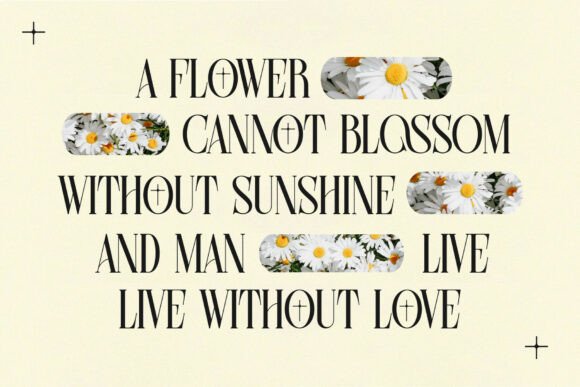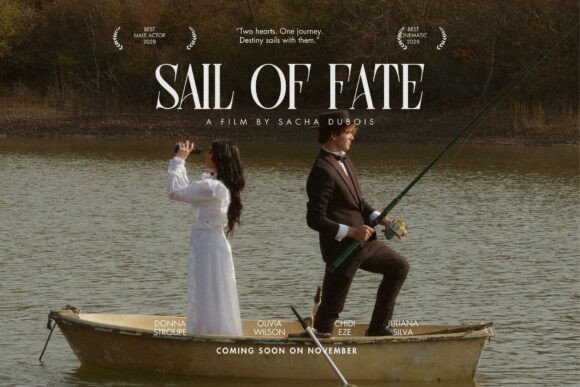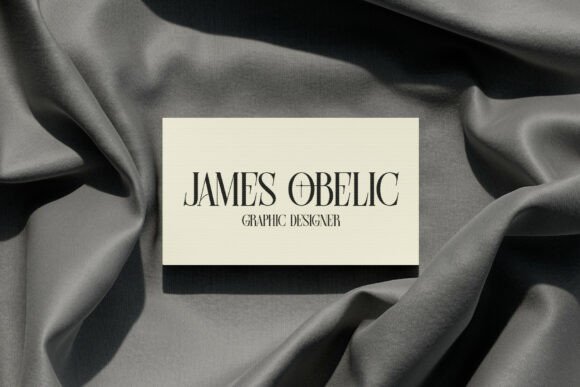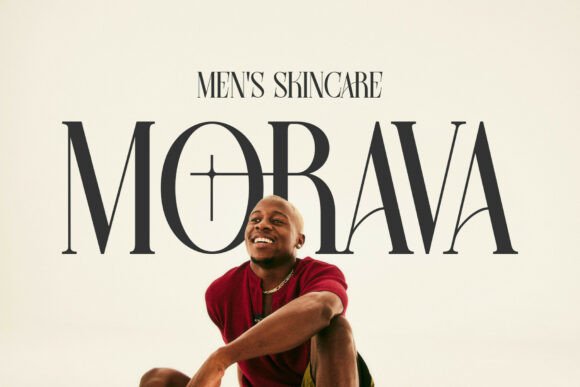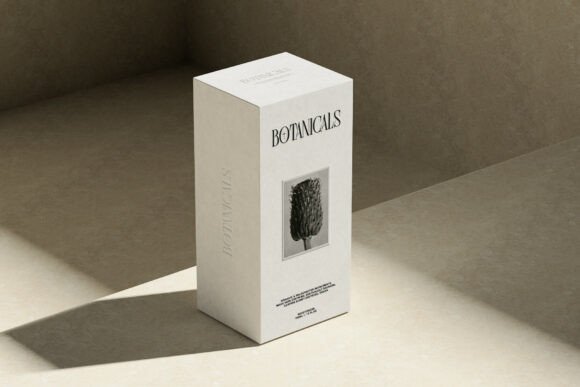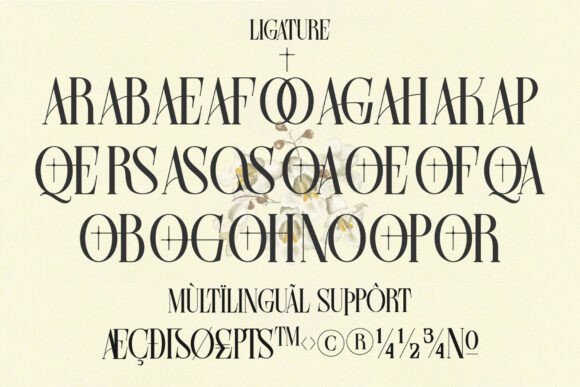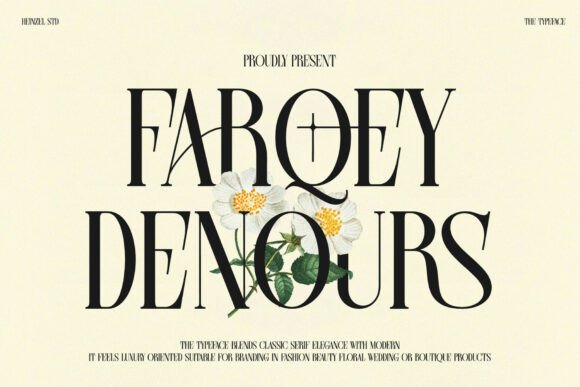
Introducing Farqey Denours Font: Elevate Your Designs with Luxury and Elegance
In the world of typography, a well-crafted font can make all the difference in elevating your designs from ordinary to extraordinary. For designers and crafters seeking to add a touch of luxury and sophistication to their work, Farqey Denours Font is an exceptional choice. This modern serif font seamlessly blends classic elegance with refined contemporary details, making it perfect for projects that demand a premium aesthetic.
What Makes Farqey Denours Stand Out?
Farqey Denours is not just another serif font; it’s a carefully designed typeface that combines high contrast strokes, graceful curves, and distinctive letterforms. These features come together to create a sophisticated and luxurious look that’s ideal for high-end branding, editorial design, and any project where making a lasting impression is key.
Key Features of Farqey Denours Font
- High Contrast Strokes: The font’s high contrast strokes add a level of sophistication and elegance, making it perfect for headlines and titles where you want to capture attention.
- Graceful Curves: The graceful curves in Farqey Denours bring a sense of fluidity and harmony to the text, enhancing readability and aesthetic appeal.
- Distinctive Letterforms: Each letterform in Farqey Denours is uniquely crafted to contribute to the font’s overall luxurious feel, ensuring your text stands out with a premium look.
- Stylish Alternates: To offer more versatility, Farqey Denours includes stylish alternates that allow you to vary the look of your text, adding personality and uniqueness to your designs.
- Artistic Ligatures: The artistic ligatures in Farqey Denours further enhance its visual appeal, providing a creative way to connect letters and create a more bespoke look for your headlines and titles.
Why Choose Farqey Denours for Your Designs?
Choosing Farqey Denours for your typography needs comes with several advantages. Firstly, its unique blend of classic and modern elements ensures your designs are both timeless and contemporary. Secondly, the font’s high readability makes it suitable for a wide range of applications, from luxury branding and advertising to editorial and packaging design.
Moreover, Farqey Denours is designed to make your headlines look polished and memorable. In a crowded marketplace, standing out is crucial, and with Farqey Denours, you can ensure your message not only captures attention but also leaves a lasting impression.
How to Use Farqey Denours Effectively in Your Designs
To get the most out of Farqey Denours, consider the following tips:
- Pair with Simpler Fonts: For body text, pair Farqey Denours with simpler, sans-serif fonts to create contrast and ensure readability.
- Experiment with Alternates and Ligatures: Take advantage of the stylish alternates and artistic ligatures to add personality and uniqueness to your designs.
- Adjust Weight and Size: Play with the different weights and sizes of Farqey Denours to create visual hierarchy and emphasize key points in your message.
Farqey Denours Font is a luxury modern serif font that offers designers and crafters a powerful tool to elevate their designs. With its blend of classic elegance and refined contemporary details, high contrast strokes, graceful curves, and distinctive letterforms, Farqey Denours delivers a sophisticated and premium aesthetic. Whether you’re working on luxury branding, editorial design, or any project that demands a touch of elegance, Farqey Denours is an excellent choice. By incorporating this versatile and stylish font into your typography arsenal, you’ll be well-equipped to create designs that are not only visually stunning but also memorable and impactful.